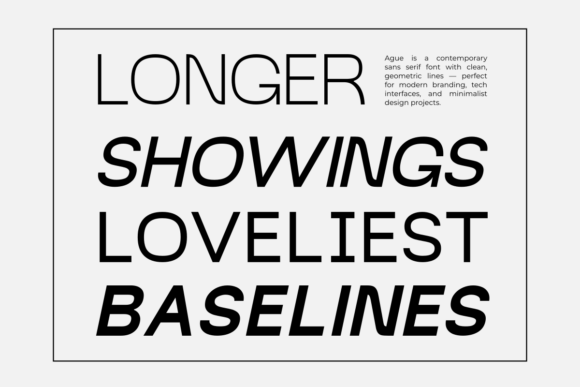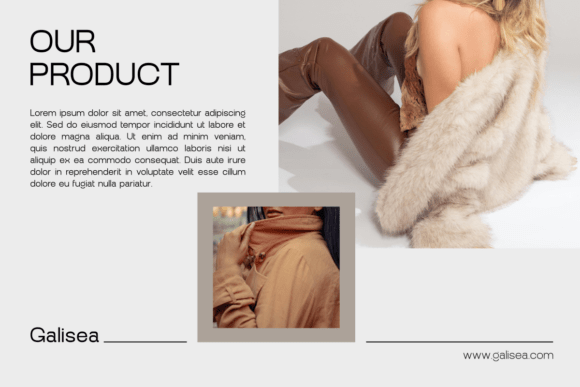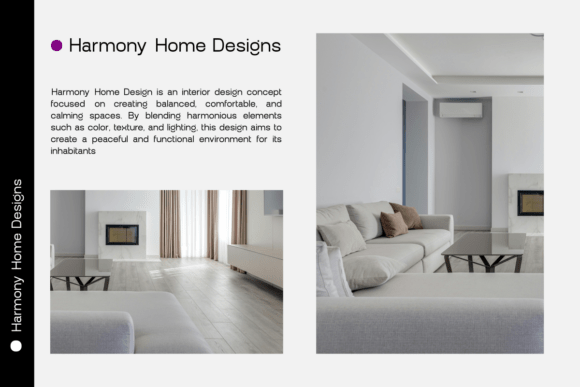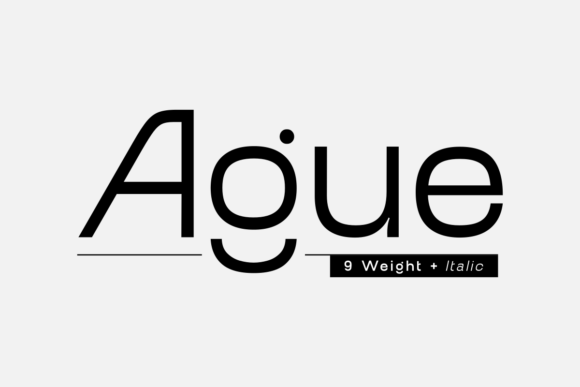
Introduction to Ague Font
Presenting Ague, a sleek sans serif typeface family with a contemporary flourish, built to infuse versatility and sophistication across a gamut of design genres.
This font family flaunts a ladder of 9 progressive weights, ranging from the slender β€˜Thin’ to the robust β€˜Black,’ each with an accompanying italic variant Ague ensures comprehensive typographic adaptability.
Key Features of Ague Font